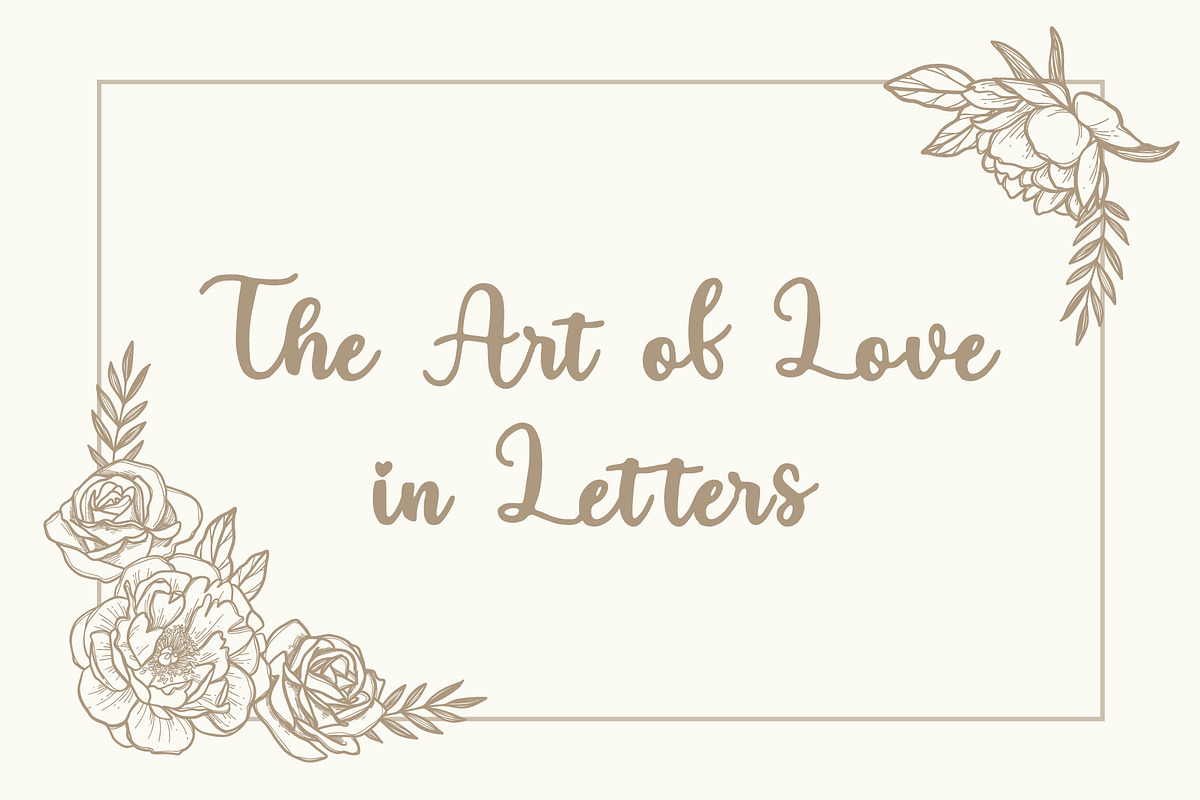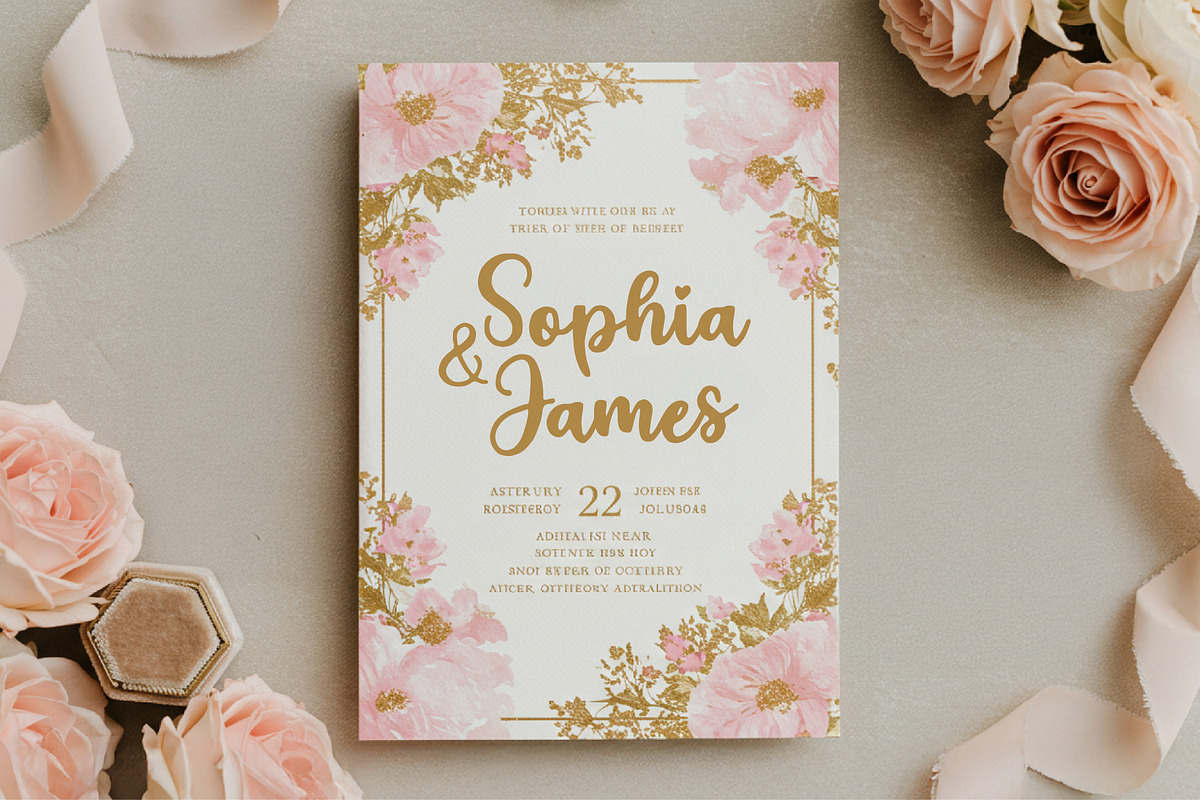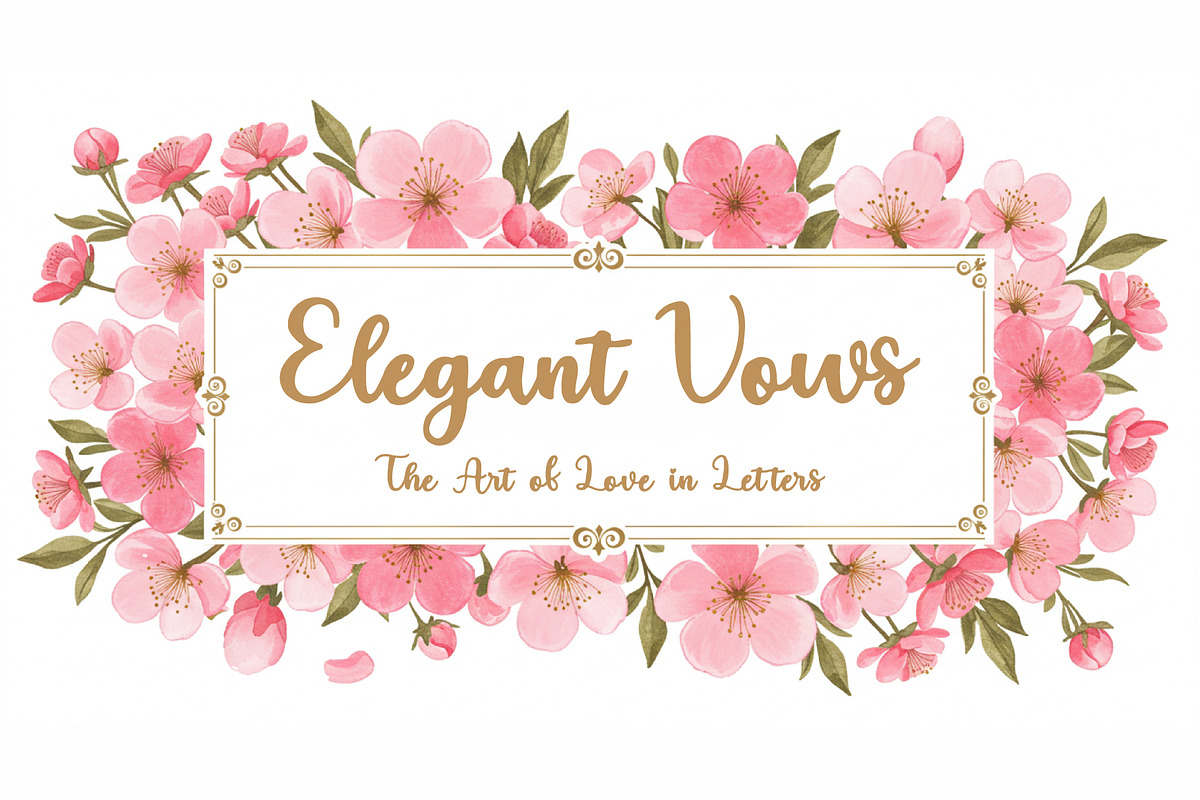
SK Elegant Vows
Elegant Vows is a beautifully crafted decorative font designed specifically for wedding invitations, romantic stationery, and other special occasion designs. With its graceful curves and sophisticated letterforms, this font adds a touch of timeless elegance to any project. Perfect for couples looking to personalize their big day or designers seeking a luxurious typographic style.